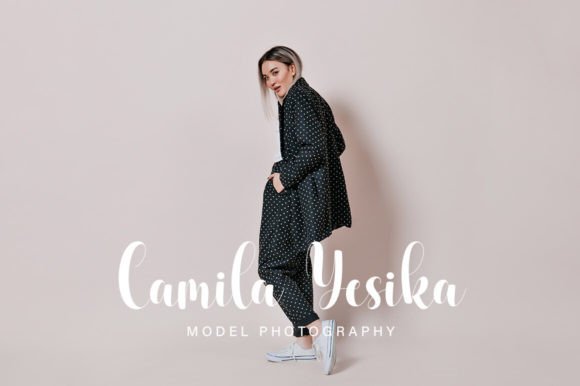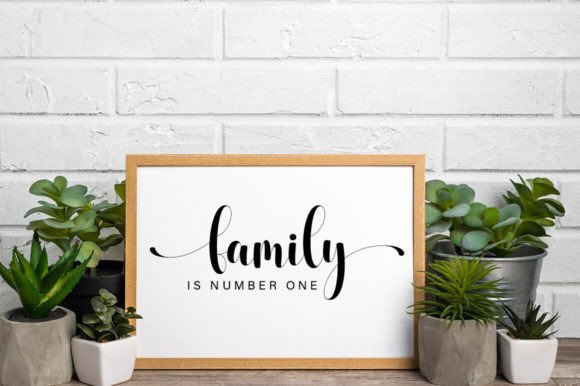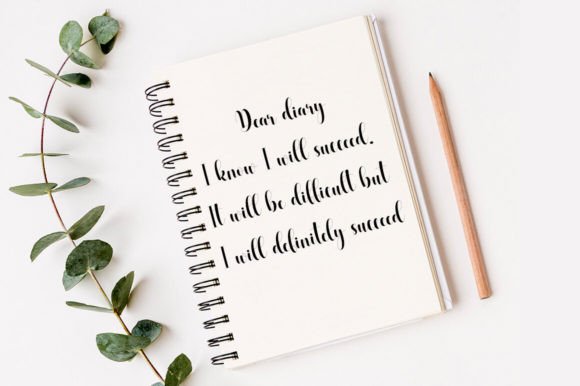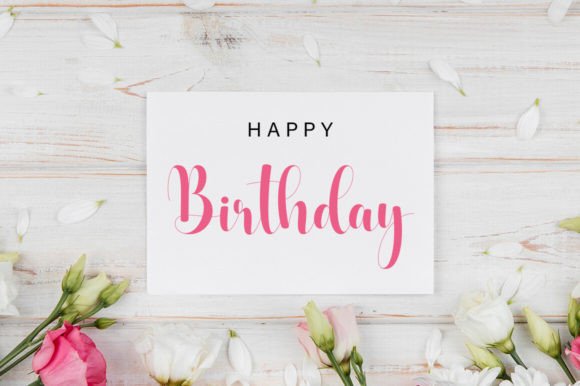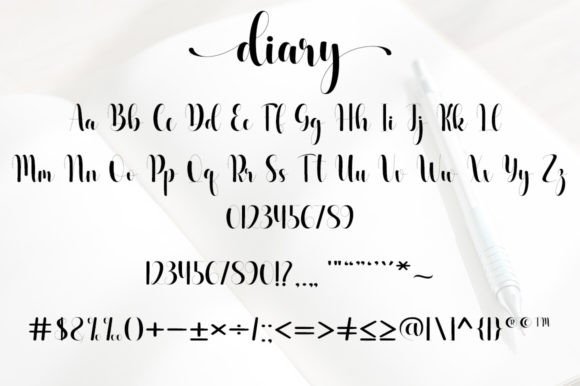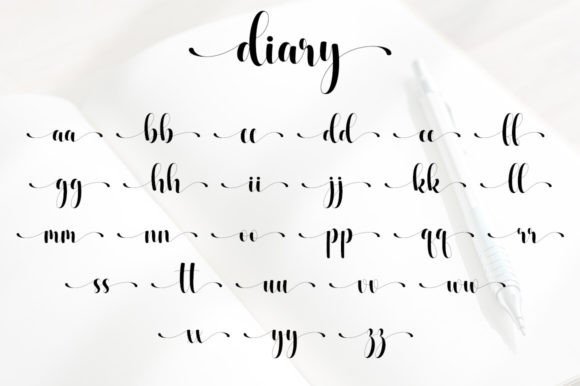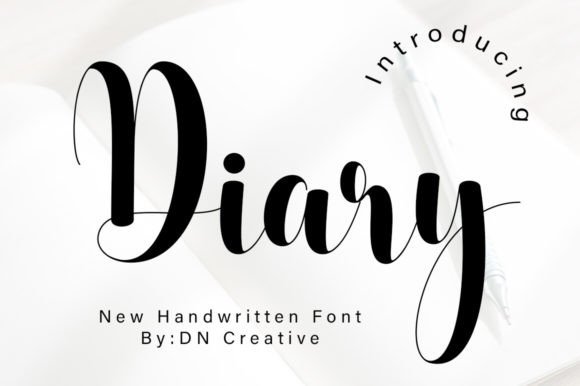
Diary Font: The Latest Style for Creative Expression
Are you a designer, crafter, or creative enthusiast looking for a unique and expressive font to elevate your projects? Look no further than Diary Font, the latest style in handwritten typography. With its charming and personal touch, Diary Font is perfect for a wide range of applications, from wall displays and wedding invitations to social media posts, logos, advertisements, and more.
The Charm of Handwritten Typography
Handwritten typography has always been a popular choice for designers and crafters looking to add a personal touch to their projects. Diary Font takes this concept to the next level with its beautifully crafted, cursive script. Each letter is carefully designed to resemble the imperfect, yet charming, strokes of a handwritten diary entry. The result is a font that exudes warmth, personality, and creativity.
Diary Font is incredibly versatile, making it suitable for a wide range of creative projects. Here are just a few ideas to get you started:
- Wall Displays: Create eye-catching wall art, quotes, or posters that add a touch of personality to any room.
- Wedding Invitations: Make your special day even more memorable with beautifully designed wedding invitations that feature Diary Font.
- Social Media Posts: Elevate your social media game with stunning graphics, logos, and quotes that showcase your brand’s personality.
- Logos and Branding: Use Diary Font to create unique and memorable logos, business cards, and letterheads that reflect your brand’s values.
- Advertisements: Grab attention with eye-catching ads that feature Diary Font, perfect for print, digital, or outdoor advertising.
- Product Packaging: Add a touch of elegance to your product packaging with Diary Font, making your products stand out on store shelves.
- Product Designs: Create stunning product designs, such as mugs, t-shirts, and tote bags, that feature Diary Font.
- Labels and Photography: Use Diary Font to add a personal touch to your labels, photography, and watermarks.
- Invitations and Stationery: Create beautiful invitations, stationery, and greeting cards that showcase your creativity.
Why Choose Diary Font?
So, why choose Diary Font over other handwritten fonts? Here are just a few reasons:
- Unique and Expressive: Diary Font offers a distinctive and expressive style that sets it apart from other fonts.
- Easy to Read: Despite its handwritten nature, Diary Font is surprisingly easy to read, making it perfect for body text and captions.
- Highly Versatile: Diary Font can be used for a wide range of projects, from digital designs to print materials.
- Timeless Appeal: The classic, cursive script of Diary Font ensures that your designs will never go out of style.